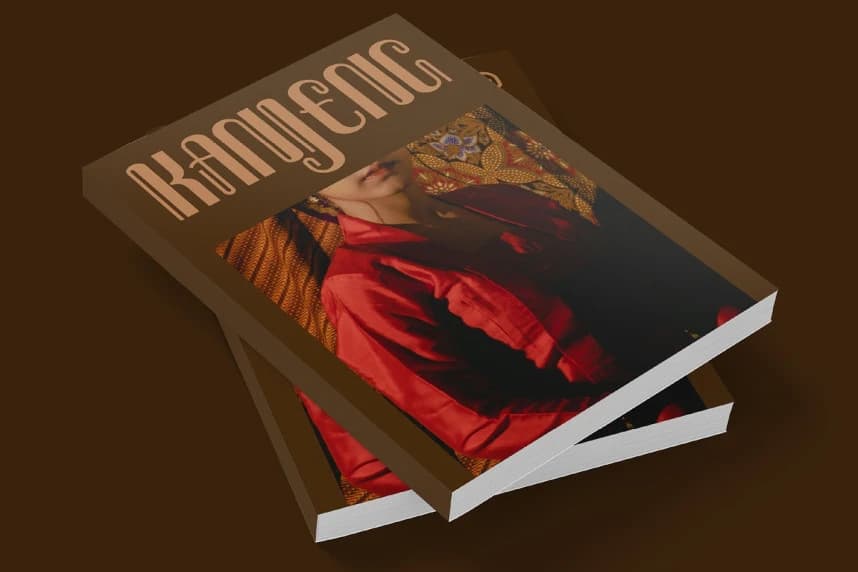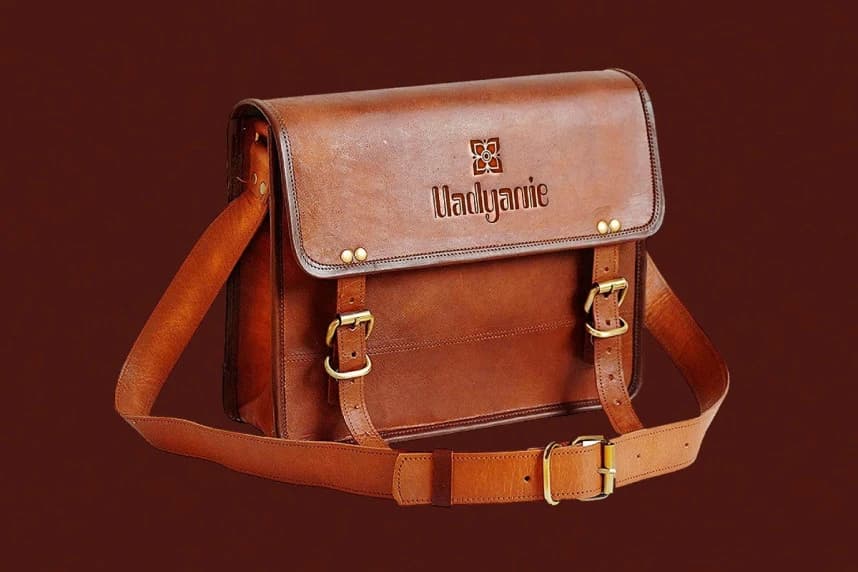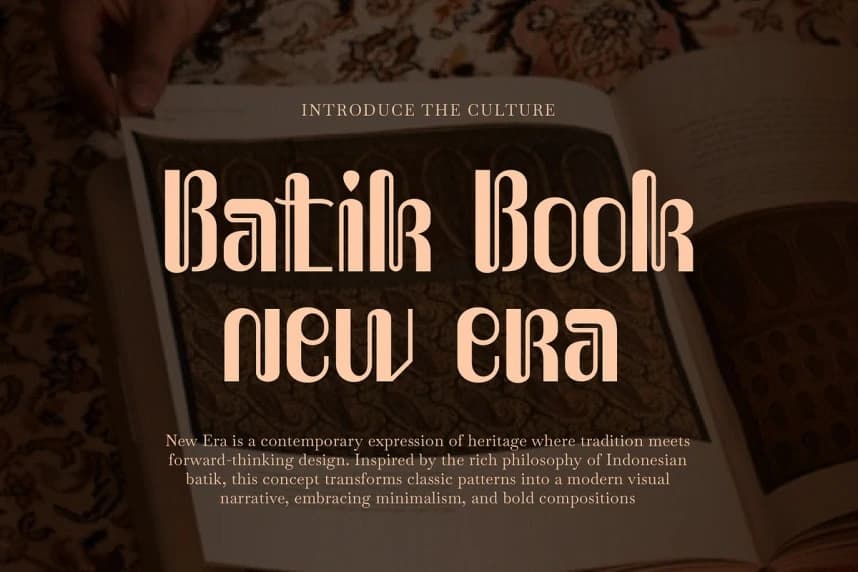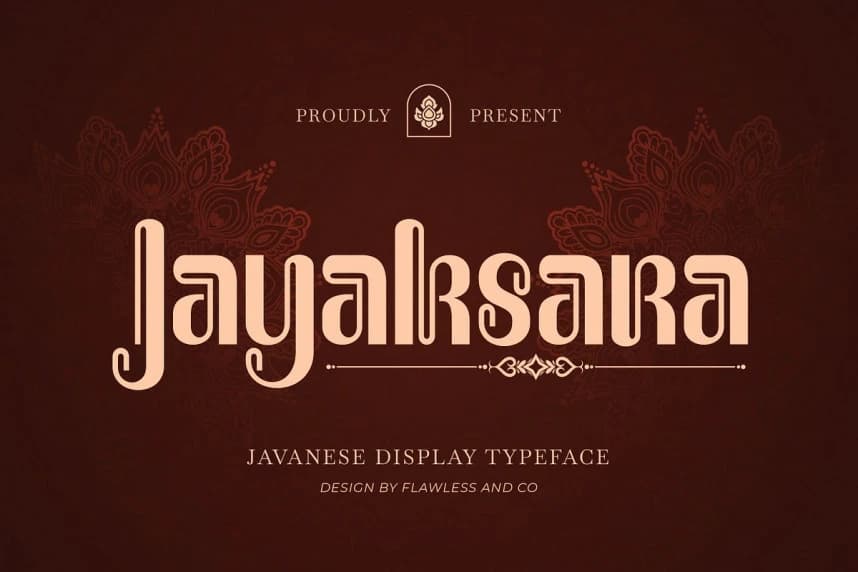
Jayaksara Font is a Javanese display font that brings the elegance of traditional script into a modern visual form. Inspired by the rich cultural heritage of Javanese lettering, Jayaksara features flowing curves, distinctive shapes, and decorative elements that create a unique